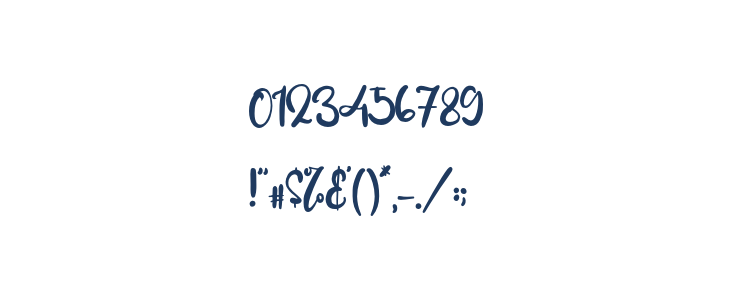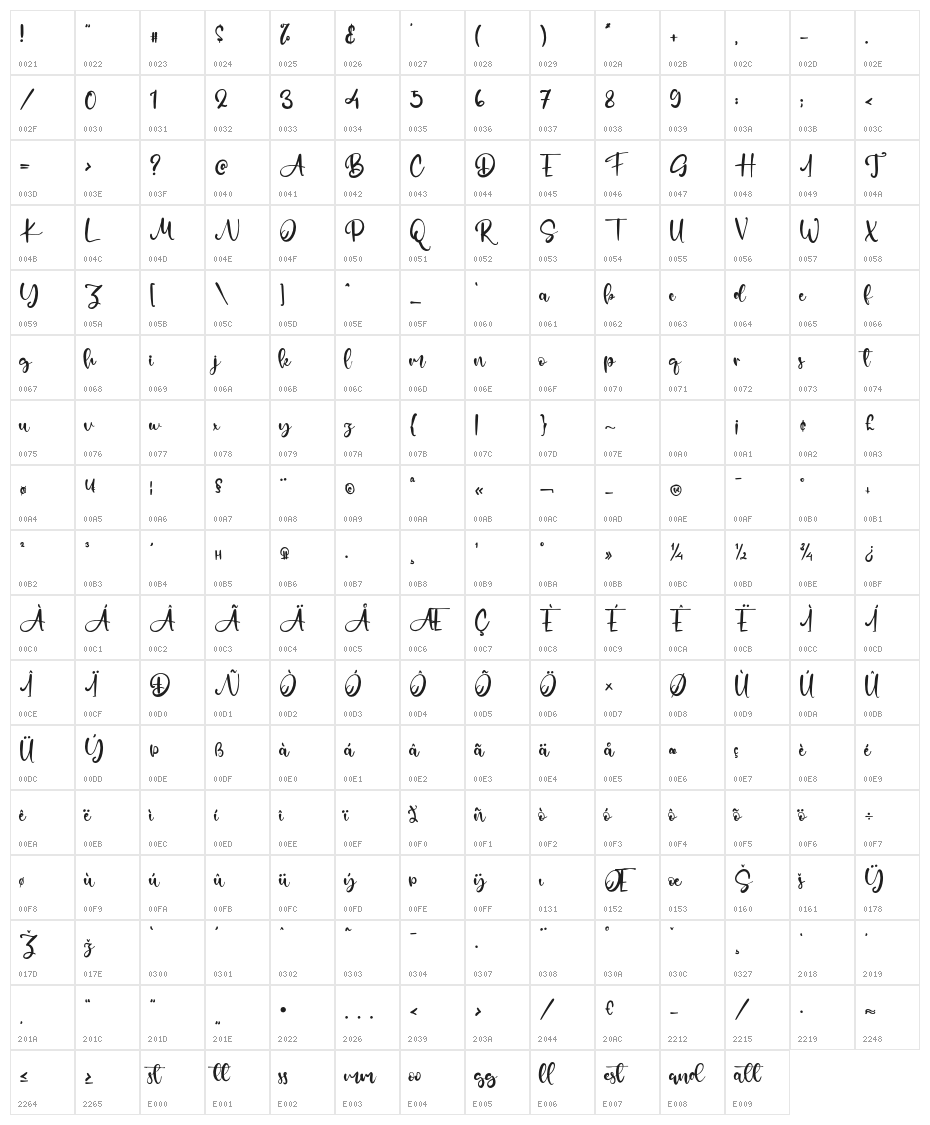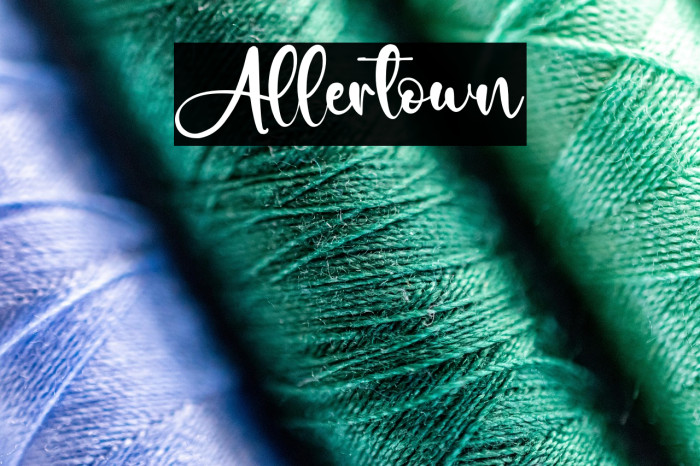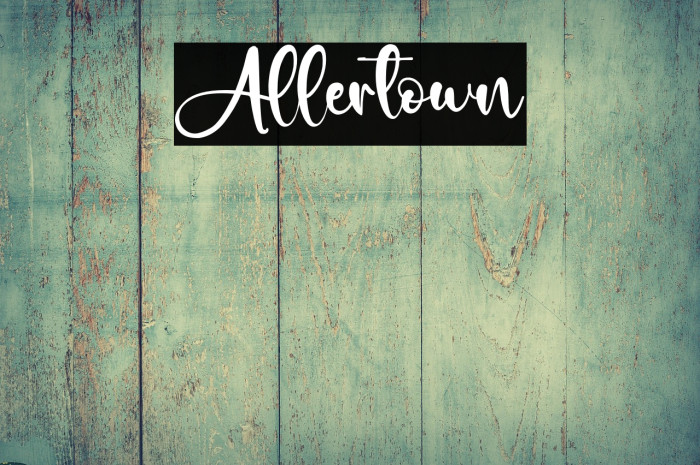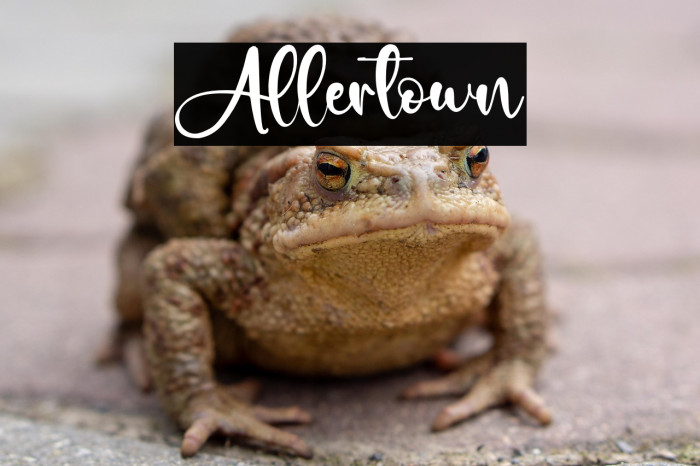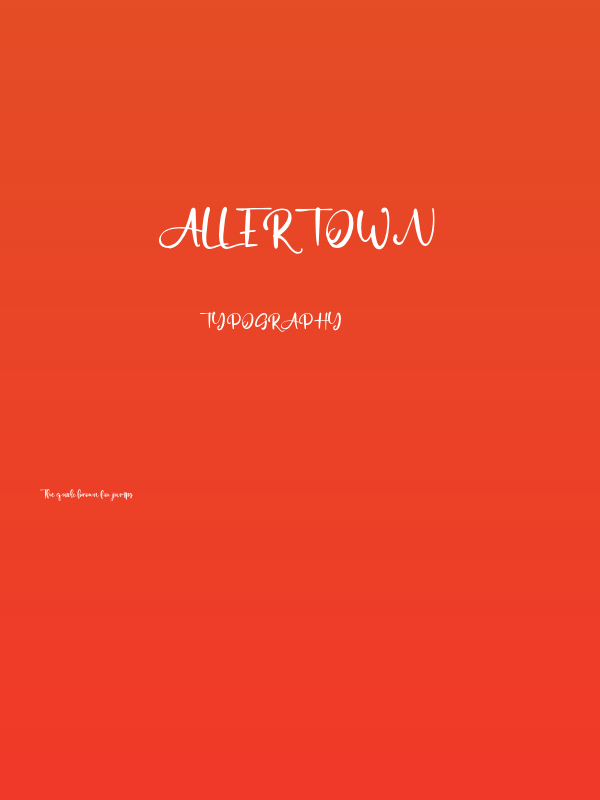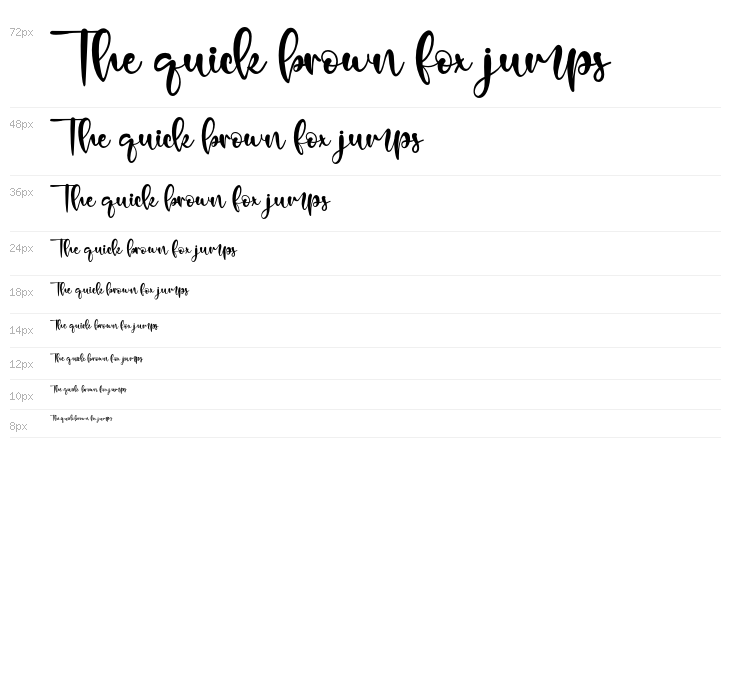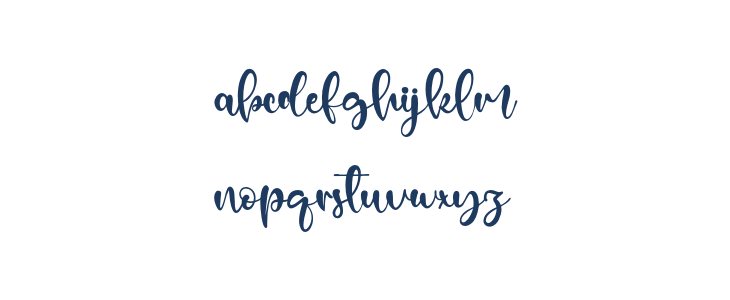
Allertown Font
Allertown Description
This font features a lively and flowing script style, characterized by its elegant curves and smooth transitions between letters. The uppercase letters are bold and expressive, with a slight slant that adds a dynamic feel. The lowercase letters maintain a consistent flow, enhancing readability while preserving the font's artistic flair. Numbers and special characters are designed to match the overall aesthetic, ensuring a cohesive look across different uses. The font's playful yet sophisticated style makes it suitable for a variety of creative projects.
Use CaseLogos, Invitations, Headlines
Proposed ProjectsIdeal for wedding invitations, greeting cards, branding, and social media graphics.